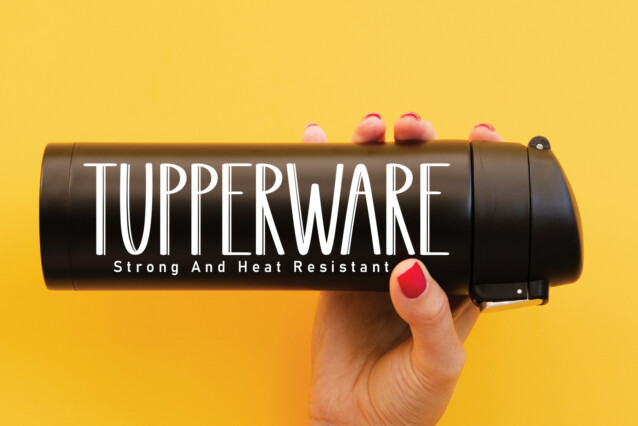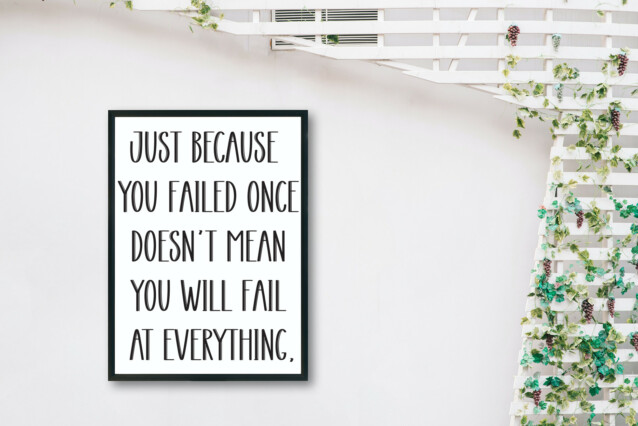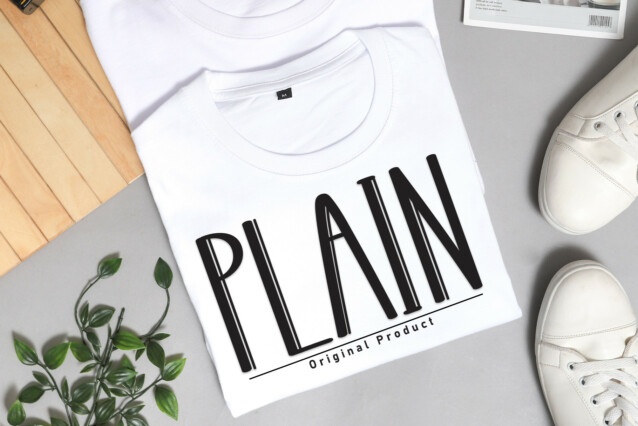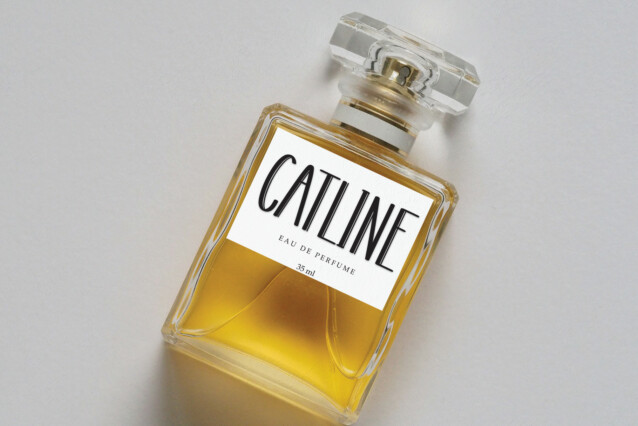
Shading Display Font
Shading Display Font feels playfully nostalgic and delivers an incredible vintage aesthetic. Use this font to add that special classic touch to any design idea you can think of!